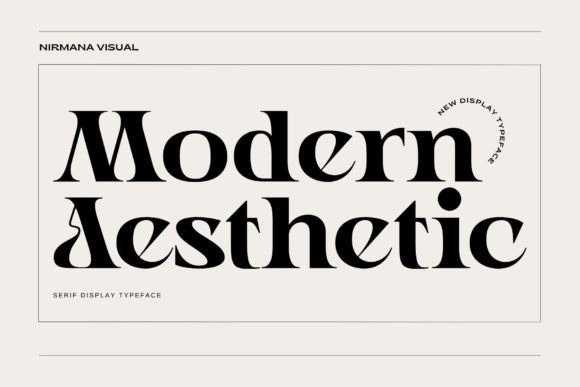
Introducing Modern Aesthetic Font, a captivating display font that will elevate your design projects to new heights! Created by the talented Sigit Dwipa, this font is inspired by the timeless beauty of the Renaissance Design Era, adding a touch of vintage retro charm to any creative endeavor.
Are you in search of the perfect font to enhance your website, logo, or branding? Look no further! Modern Aesthetic Font is your ultimate solution. With its beautiful typographic harmony, this font offers a versatile range of possibilities for your design needs. From social media posts to advertisements and product designs, the possibilities are endless.
One of the standout features of Modern Aesthetic Font is its PUA encoding. This means that accessing all the unique glyphs and swashes is effortless, allowing you to add that extra flair to your designs effortlessly. Say goodbye to limitations and hello to unlimited creativity!
But why should you choose Modern Aesthetic Font over other options? Let us give you a few reasons. Firstly, its captivating beauty will instantly draw attention and leave a lasting impression on your audience. It is the perfect blend of classic elegance and modern appeal, making it suitable for a wide range of industries and design styles.
Lastly, the emotional impact of Modern Aesthetic Font cannot be overstated. Its vintage retro charm evokes a sense of nostalgia and authenticity, resonating with your audience on a deeper level. Whether you're aiming for a sophisticated and classy vibe or a fun and whimsical atmosphere, this font has got you covered.